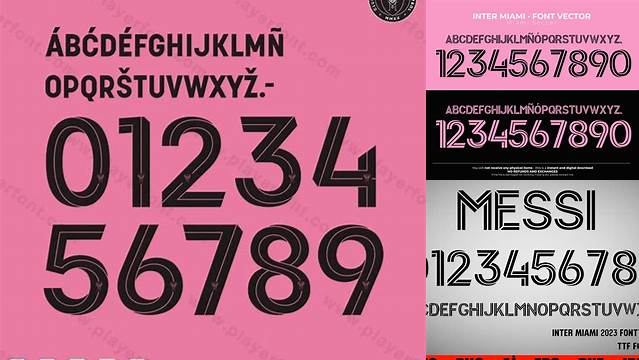
Are you a die-hard Inter Miami CF fan? Do you want to show your support for the team in every way possible? One fantastic way to do that is by using the official Inter Miami font in your projects! Whether you're designing a banner, creating social media graphics, or just want to add a touch of Inter Miami flair to your documents, having the right font is essential. In this article, we'll dive deep into everything you need to know about the Inter Miami font, including where to find it, how to download it, and how to use it effectively. So, buckle up, fellow Inter Miami supporters, and let's get started!
What is the Inter Miami Font?
First, let's clarify what we mean by the "Inter Miami font." Officially, Inter Miami CF, like many professional sports teams, utilizes specific typography as part of their brand identity. This typography includes fonts used in their logo, jerseys, marketing materials, and other visual communications. While the team might not offer their exact proprietary font for public download, there are usually similar fonts or inspired typefaces that capture the essence of the team's visual style.
Typically, sports team fonts convey strength, modernity, and a connection to the team's geographic location. For Inter Miami, you'll often see fonts that are sleek, bold, and have a Miami-esque vibe – think modern sans-serif fonts with a touch of flair. When fans search for the "Inter Miami font," they are generally looking for a typeface that mirrors this aesthetic.
Understanding the characteristics of the Inter Miami font helps you in your search. Look for fonts that are:
- Bold and impactful: To reflect the strength and energy of the team.
- Modern and clean: To align with the contemporary branding of Inter Miami.
- Unique and stylish: Possibly with a slight Latin or Miami-inspired touch.
Finding a font that encapsulates these elements will bring you closer to the authentic Inter Miami look.
Why Use the Inter Miami Font?
So, why should you bother finding and using a specific font that resembles the Inter Miami typeface? Well, there are several compelling reasons:
- Brand Consistency: If you're creating content related to Inter Miami, using a similar font helps maintain brand consistency. This is crucial for fan sites, social media accounts, and any other platform where you're representing the Inter Miami spirit.
- Professional Look: Using a font that aligns with the team's branding gives your designs a more polished and professional appearance. It shows that you pay attention to detail and are serious about representing Inter Miami.
- Fan Engagement: As a fan, using the Inter Miami font is a fun way to express your support and connect with other fans. It's a subtle yet effective way to show your allegiance.
- Creative Projects: Whether you're designing custom merchandise, creating digital art, or making videos, the right font can elevate your creative projects and make them stand out.
By utilizing the Inter Miami font, you are essentially adding a layer of authenticity and dedication to your projects, making them more impactful and visually appealing.
- Font Squirrel Matcherator: Similar to WhatTheFont!, this tool allows you to upload an image and find matching or similar fonts, focusing on fonts that are free for commercial use.
Free Font Websites:
- Google Fonts: Google Fonts offers a wide variety of free fonts that you can use in your projects. Look for sans-serif fonts with a modern and bold aesthetic. Fonts like Montserrat, Open Sans, and Roboto can be excellent alternatives.
- Font Squirrel: Font Squirrel is another excellent resource for free fonts, all of which are available for commercial use. This is a great place to find high-quality fonts that you can use in your Inter Miami-related projects.
- DaFont: DaFont has a massive collection of fonts, including many that are free for personal use. Be sure to check the license before using any font for commercial purposes.
Font Foundries and Designers:
- Sometimes, font foundries or individual designers offer free trial versions of their fonts. Keep an eye out for these opportunities, as they can provide access to premium fonts for a limited time.
- Follow font designers on social media or subscribe to their newsletters. They often share free fonts or offer discounts on their premium fonts.
Online Design Communities:
- Websites like Behance and Dribbble often feature designers who create and share free fonts. Explore these platforms to discover unique and stylish fonts that might be perfect for your Inter Miami projects.
Finding and using the Inter Miami font is a fantastic way to show your support for the team and enhance your creative projects. While the exact official font might be elusive, there are plenty of similar fonts available that capture the essence of Inter Miami's branding. By using font identification tools, exploring free font websites, and following the tips outlined in this article, you can find the perfect font to represent Inter Miami in your designs. So go ahead, download that font, and let your Inter Miami pride shine through!